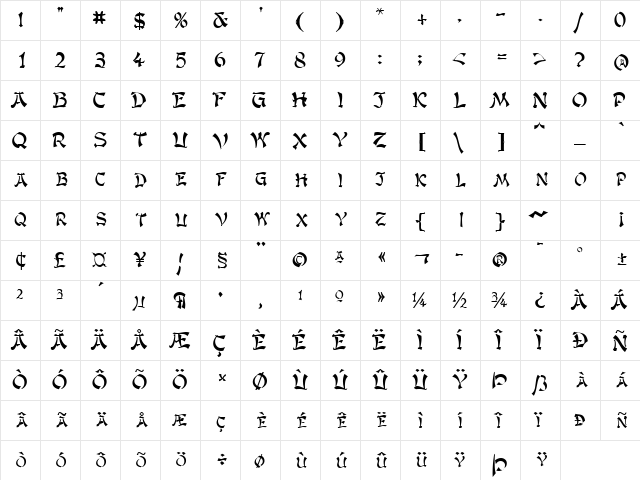
MarcoPoloSCapsSSK Regular
Design Context for MarcoPoloSCapsSSK Typeface
MarcoPoloSCapsSSK is a composed and adaptable typeface that performs quietly and consistently across a wide range of design contexts.